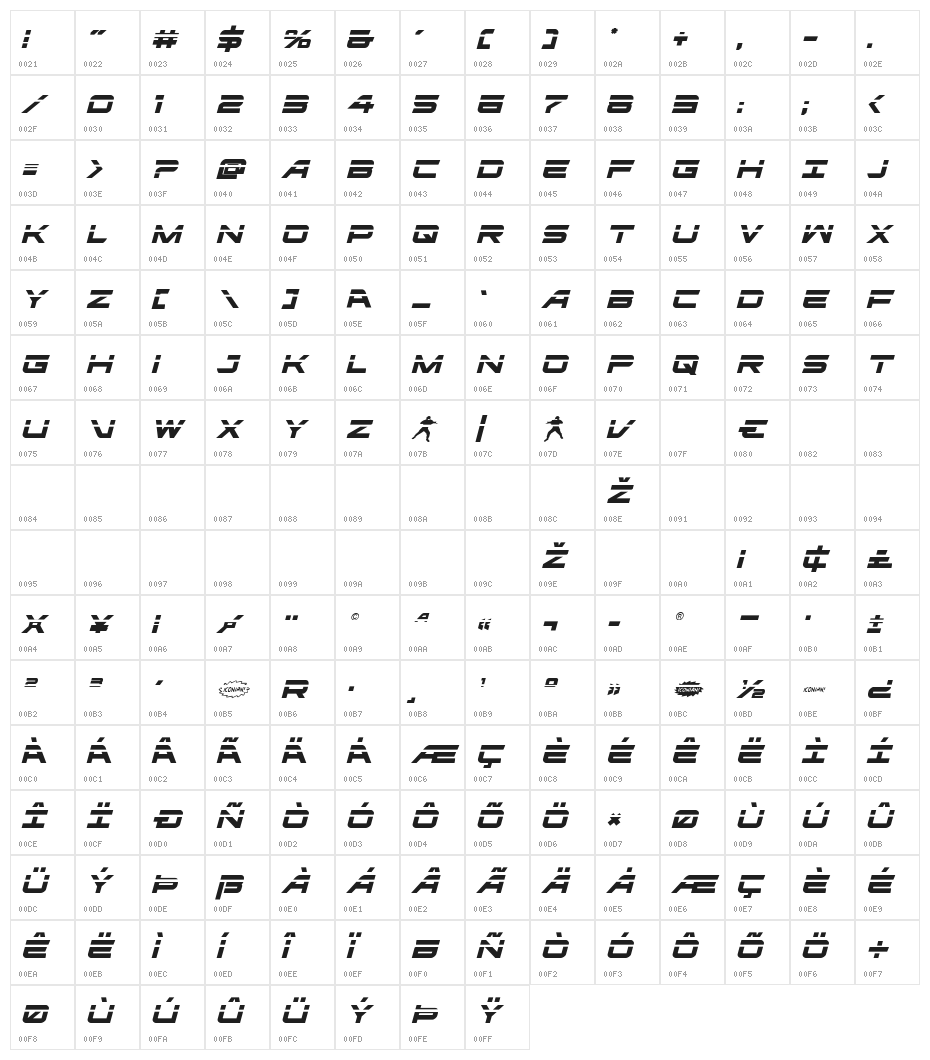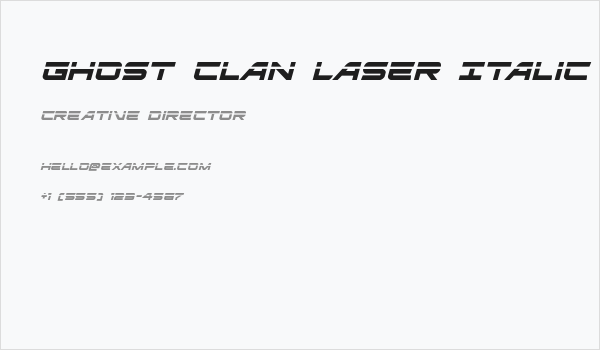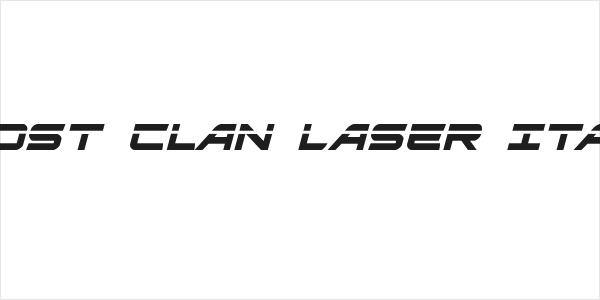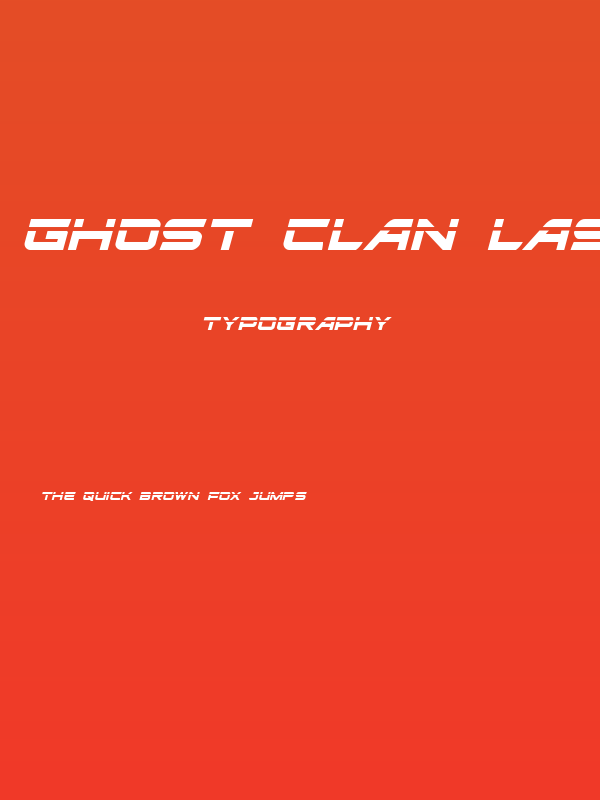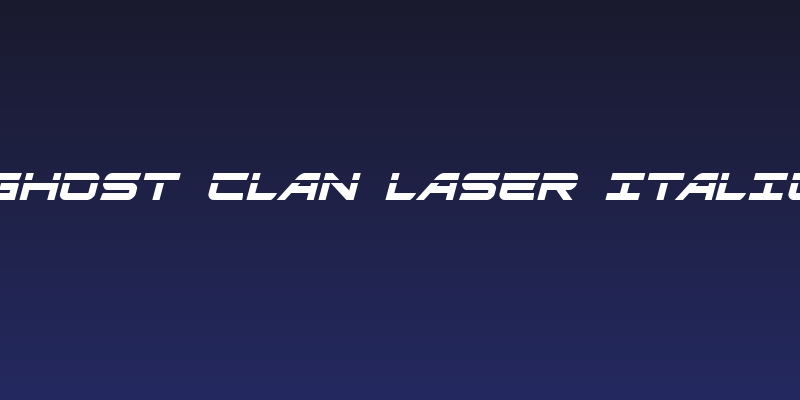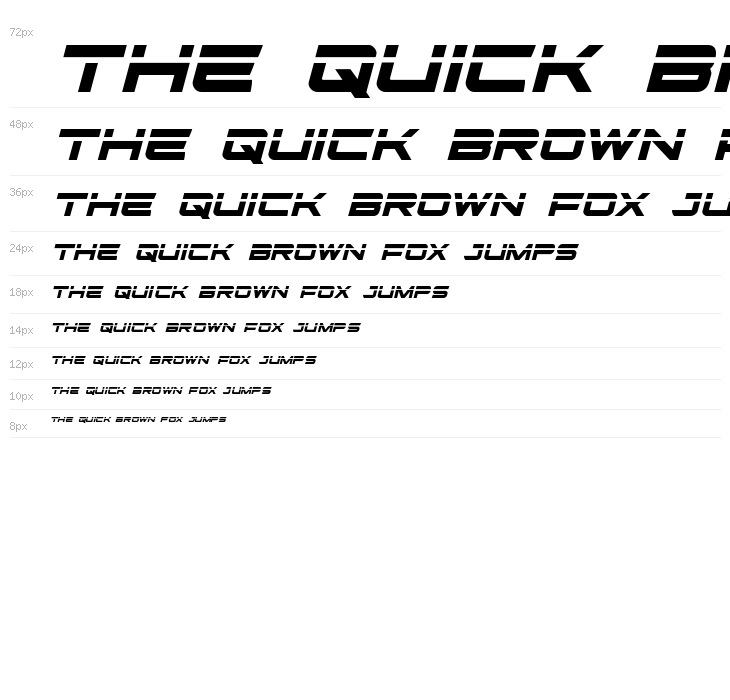
Ghost Clan Laser Italic Font
Ghost Clan Laser Italic Description
This font features a futuristic and angular design, characterized by sharp edges and a slanted, italicized form. The letters are bold and dynamic, with a distinct geometric style that gives a sense of speed and modernity. The uppercase and lowercase letters maintain a consistent style, with the numbers and special characters following suit. The overall appearance is sleek and tech-inspired, making it suitable for projects that require a cutting-edge and innovative look.
Proposed ProjectsIdeal for technology branding, sci-fi movie posters, video game titles, and modern advertising campaigns.